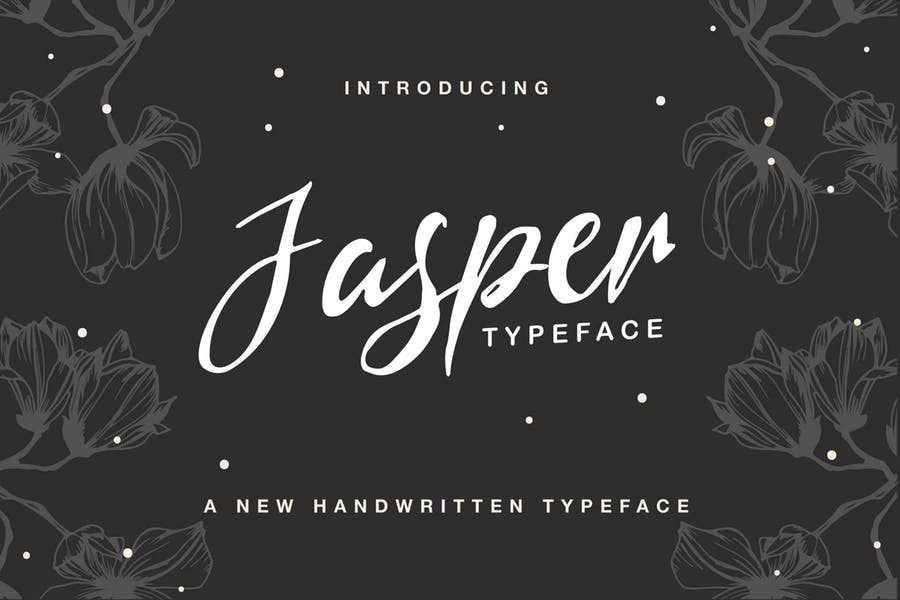
Jasper Typeface Font
Jasper Typeface Font is perfect for contemporary corporate branding, modern professional communications, sophisticated business presentations, clean web design, refined marketing materials, progressive company identity, upscale consulting firms, elegant product packaging, polished digital interfaces, and distinguished service industry branding.
Jasper Typeface Font is exciting because it masterfully captures the essence of refined professionalism and contemporary sophistication, creating a typeface that embodies clarity, reliability, and the polished excellence that defines successful modern business communication. This font brings professional distinction and contemporary elegance to any project, making it ideal for organizations that want to convey expertise, trustworthiness, and the sophisticated competence that builds lasting client relationships. Its refined character and professional appeal create an atmosphere of business confidence that resonates with discerning audiences seeking quality services and reliable partnerships.
Jasper Typeface Font family includes thin, light, regular, medium, bold, and black weights, each available in roman and italic styles with professional symbols and business ornaments, providing designers with comprehensive tools for creating sophisticated typography and professionally polished brand experiences.
This distinguished professional typeface combines contemporary design principles with business functionality, making Jasper Typeface Font Free Download an exceptional choice for projects requiring both visual sophistication and professional credibility. The font's expertly crafted letterforms feature refined proportions and business-inspired styling that reflect the precision and reliability essential for professional service excellence and corporate communication.
Whether you're developing consulting firm branding, professional service materials, or sophisticated corporate communications, Jasper Typeface Font delivers unmatched professional authenticity and business appeal. The font excels in both detailed business applications and large-scale corporate environments where professional competence and sophisticated reliability create successful business relationships.
Business professionals choose Jasper Typeface Font for its ability to instantly communicate expertise and professional sophistication while maintaining the clarity essential for complex business communication. The font's refined character makes it particularly effective for consulting firms, professional services, and sophisticated business enterprises.
Each character reflects the polished precision of professional excellence, featuring refined construction and business-optimized proportions that create typography as reliable and sophisticated as successful partnerships, expert consultation, and the highest standards of professional service delivery.